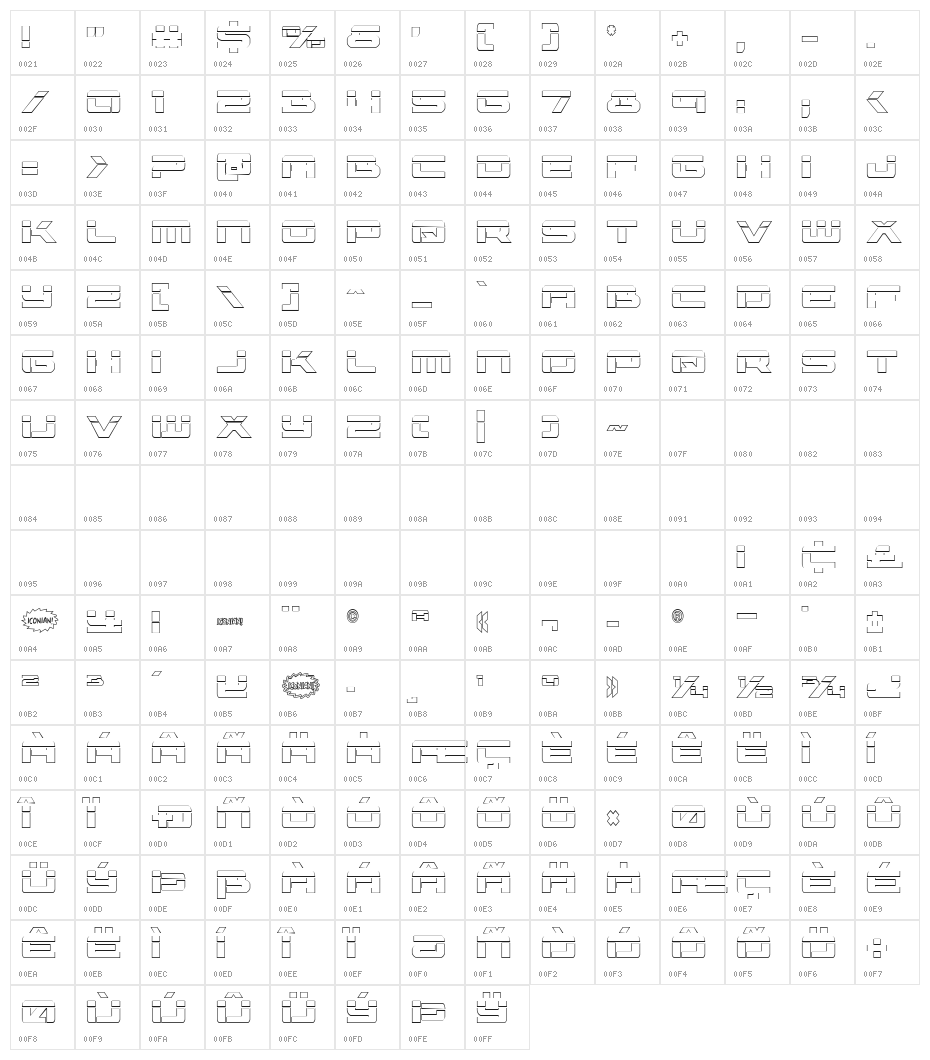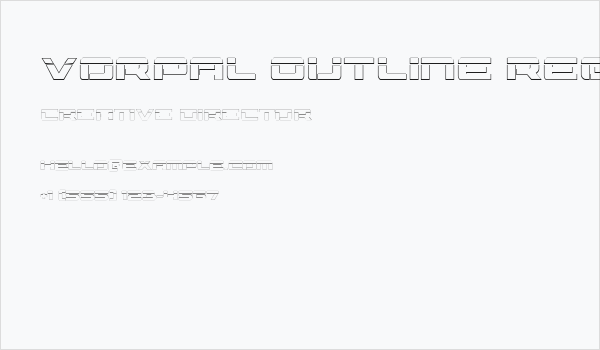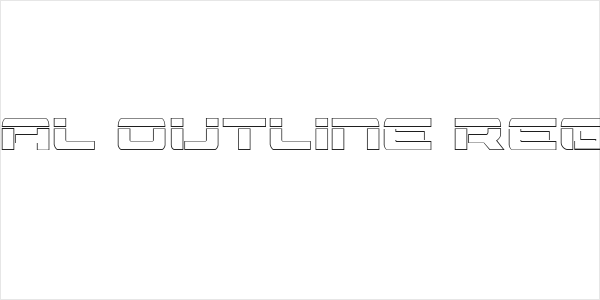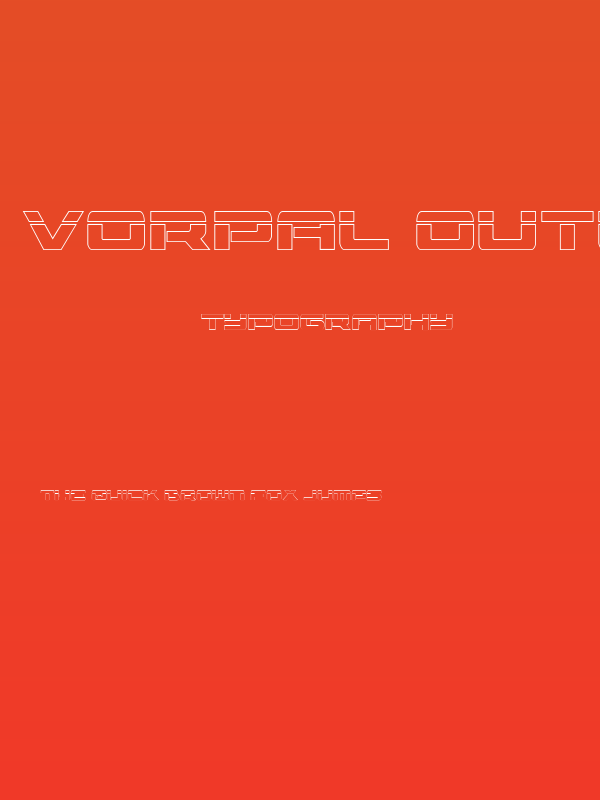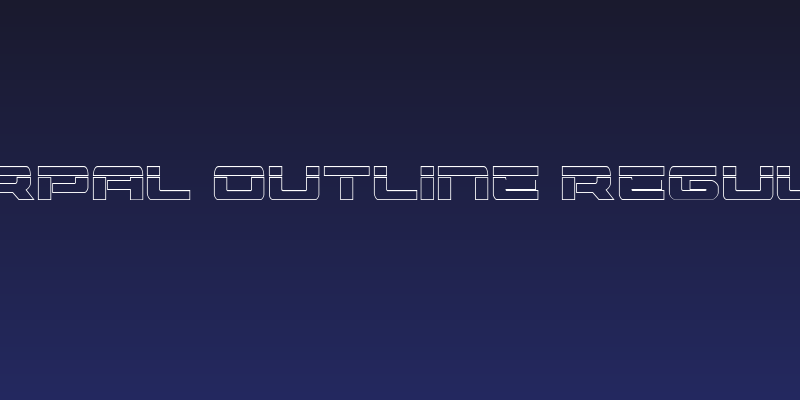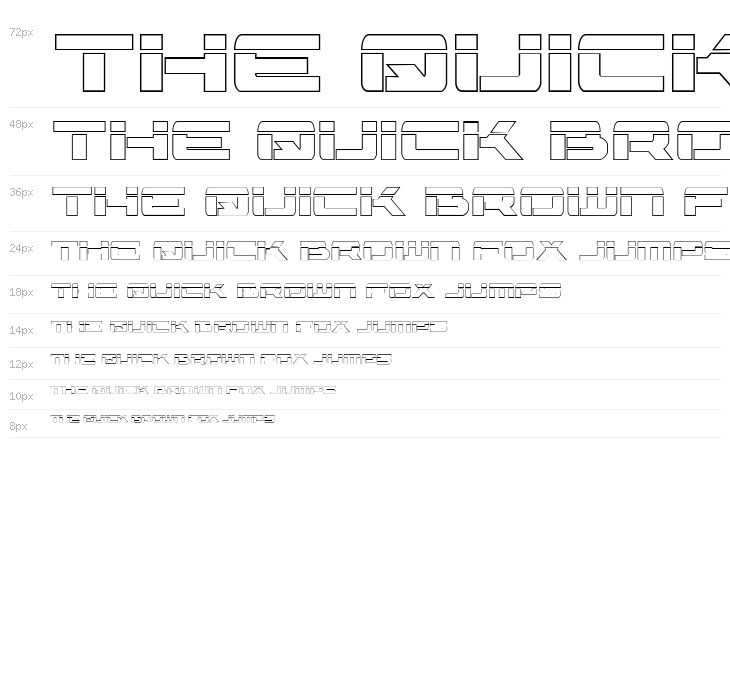
Vorpal Outline Regular Font
Vorpal Outline Regular Description
This font features a distinct outline style with a futuristic and geometric appearance. The characters are constructed with clean, angular lines that form a hollow interior, giving it a modern and digital feel. The uppercase and lowercase letters maintain a consistent design, emphasizing uniformity and precision. The numerals and special characters follow the same structural pattern, ensuring a cohesive look across all glyphs. This font's unique outline design makes it stand out, ideal for projects that require a bold and eye-catching typeface.
Proposed ProjectsIdeal for technology branding, sci-fi themed designs, video game titles, and digital art projects.